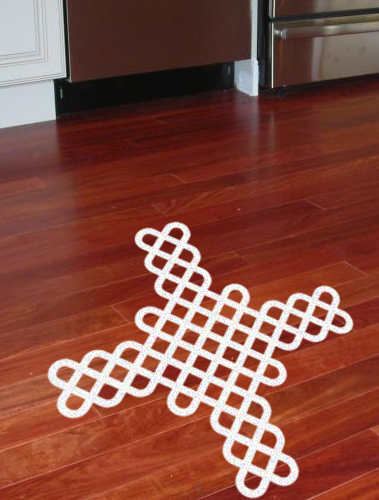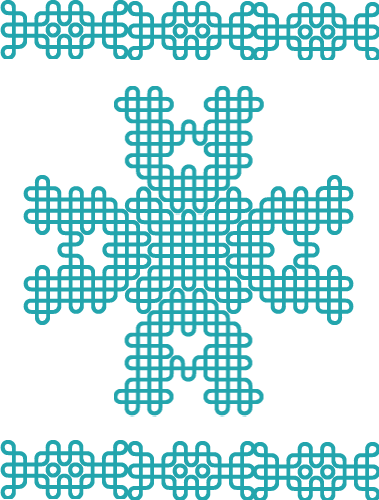
• This one is based on kolam. kolam is an art of floor drawing, which is prevalent in South India. The lines are interesting to see. The lines form longer loops. With few loops interesting patterns can be formed. Sometimes a single line can compose a kolam. Decoration is not the sole purpose of kolam. Traditionally kolam is drawn with dry rice powder. And it is said to invite other small creatures to eat it. Everyday a new kolam is drawn.
This is letter X
This reminds me of... waffles!!